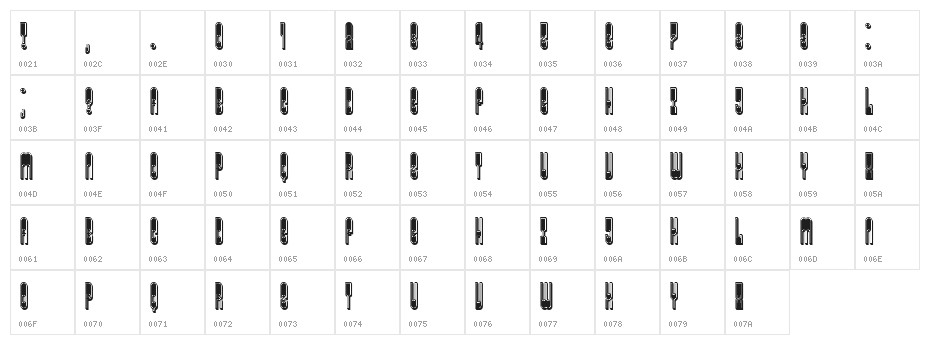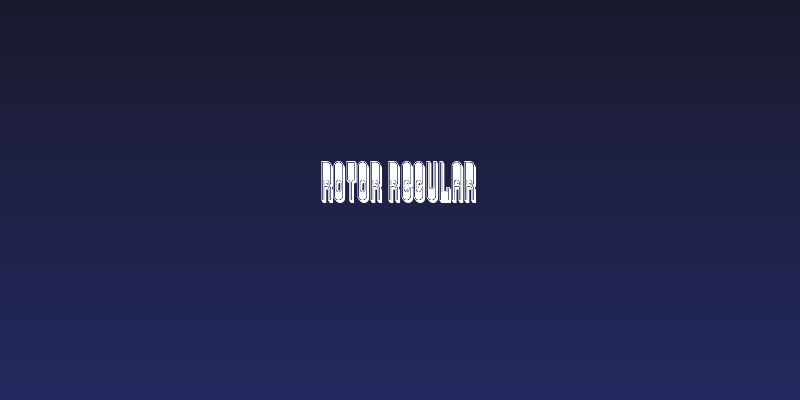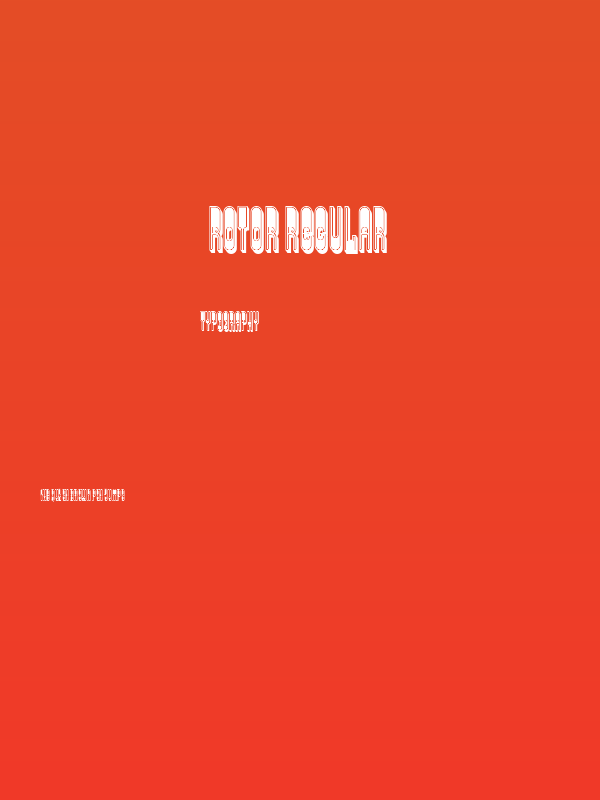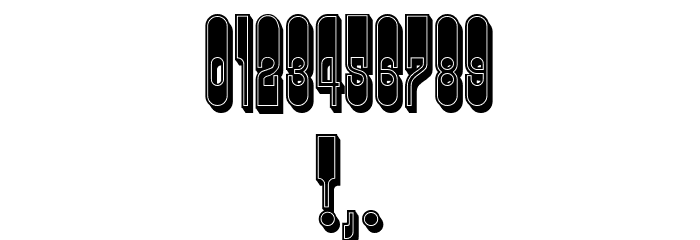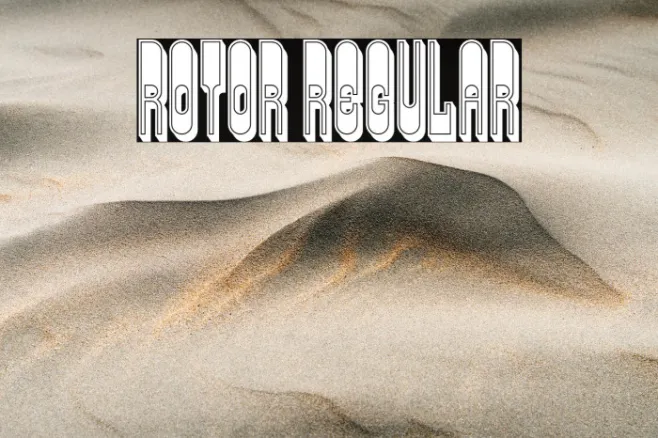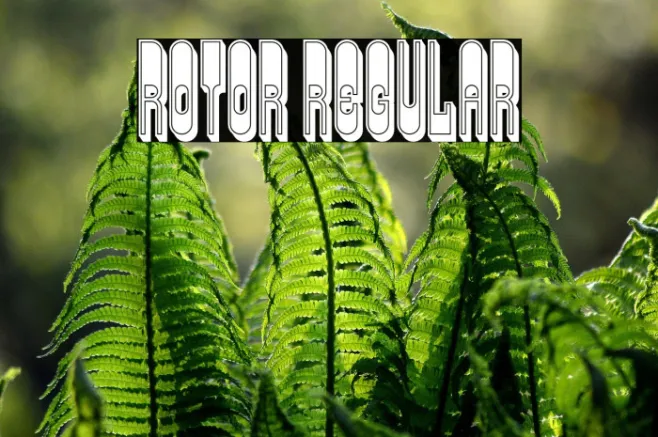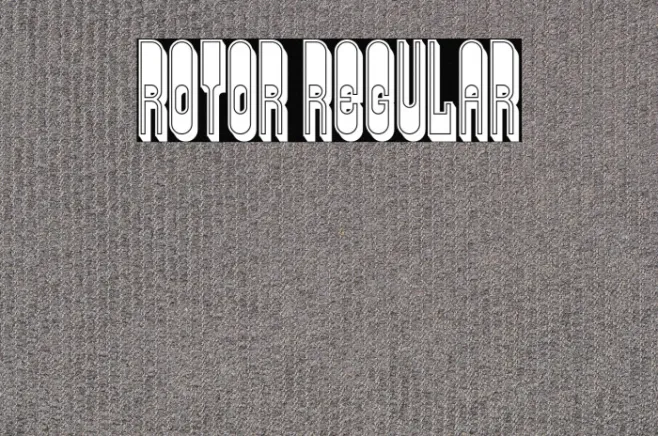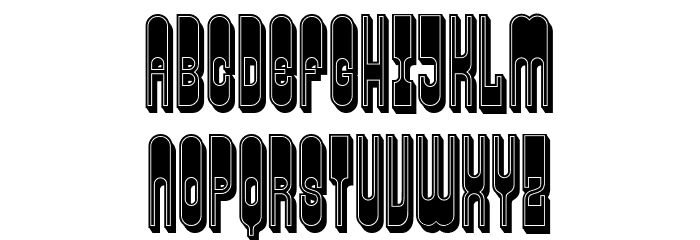
Rotor Regular Font
Rotor Regular Description
This font features a bold and striking design with a strong presence. The characters are outlined with a thick black border, creating a three-dimensional effect that makes each letter stand out. The style is geometric and structured, with uniform stroke widths and a consistent height across all characters. The uppercase and lowercase letters share similar design elements, maintaining a cohesive look. The numbers and special characters are designed to match the boldness and style of the alphabet, ensuring a harmonious appearance throughout. This font is ideal for making a statement and grabbing attention.
| Proposed Projects | Ideal for posters, headlines, branding, and any project requiring a bold, eye-catching typeface. |